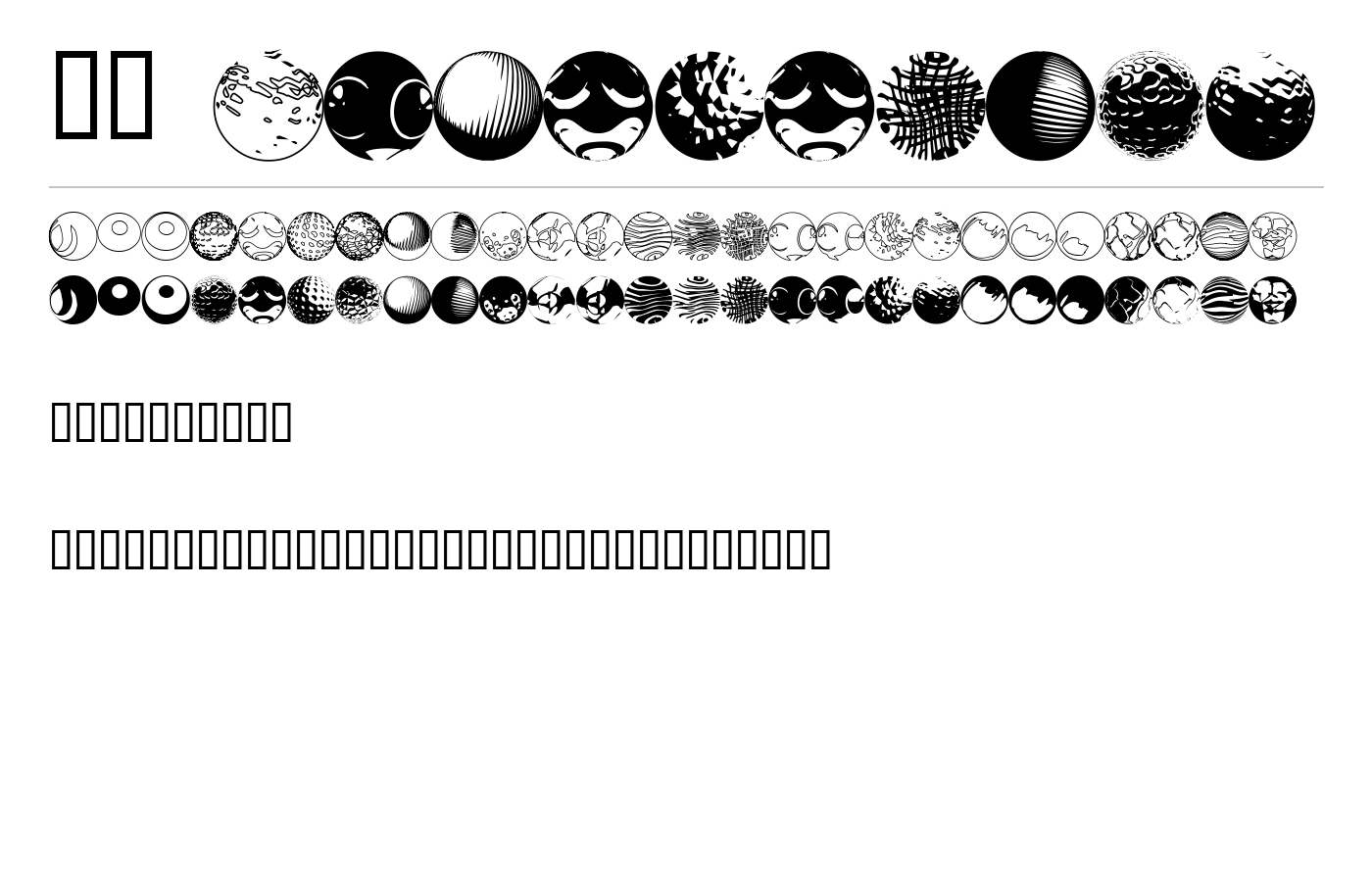
52 Sphereoids is a decorative symbol font featuring a diverse collection of intricately patterned spherical shapes. Each glyph represents a unique textured orb, making it ideal for creative design projects that need eye-catching, abstract elements. This font works best for logos, posters, and artistic layouts where visual interest and originality are key.
52 Sphereoids Font
About 52 Sphereoids Font